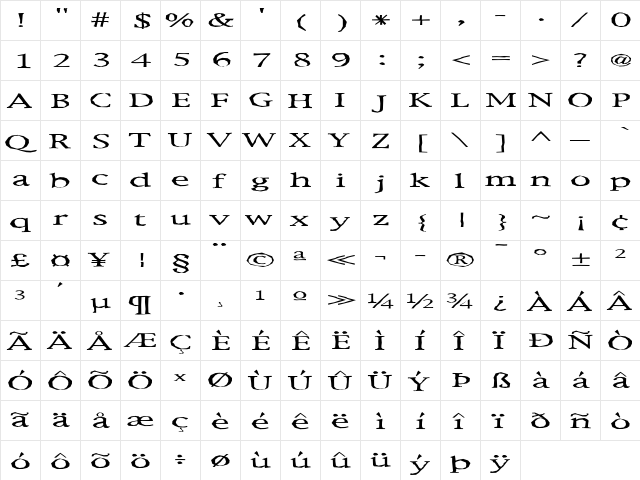
Metaphor Regular
| Foundry | \ Lunchbox Design, By Adam Roe, |
Design Context for Metaphor Typeface
Metaphor takes a measured approach to typography — its balanced proportions and neutral character make it a reliable workhorse for both digital and print work.